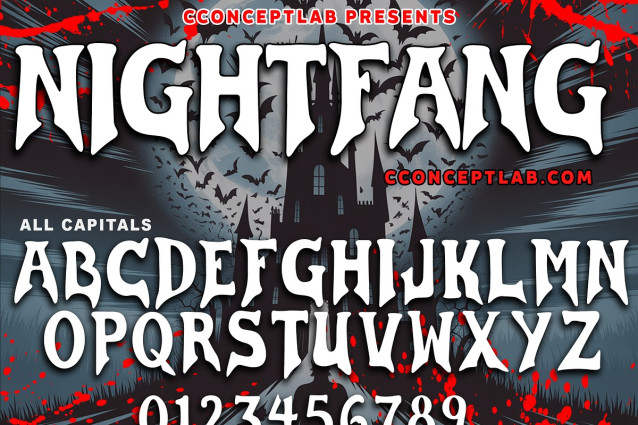
Nightfang Font
NightFang is a horror theme bold typeface with rugged edges and expressive character. It comes with uppercase letters only, making it perfect for edgy branding, grunge posters, music festival, cover albums, horror titles, and street-style designs. Its blackleeter texture gives your message power and movement.
• Horror halloween inspired font perfect on your projects, covers, publishing etc.
• Lifestyle bloody vampire theme font for branding, website, mobile app etc.
• Available in Uppercase, Numbers, Punctuations and Symbols.